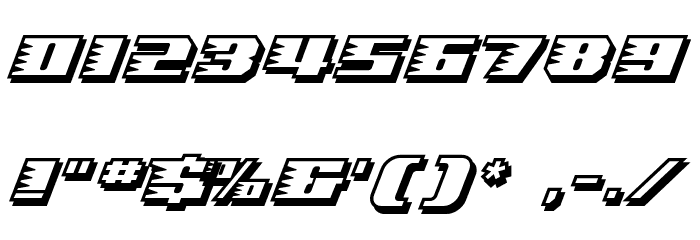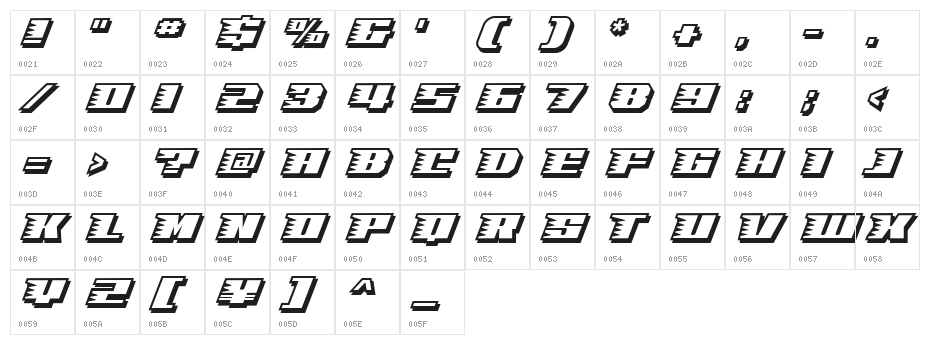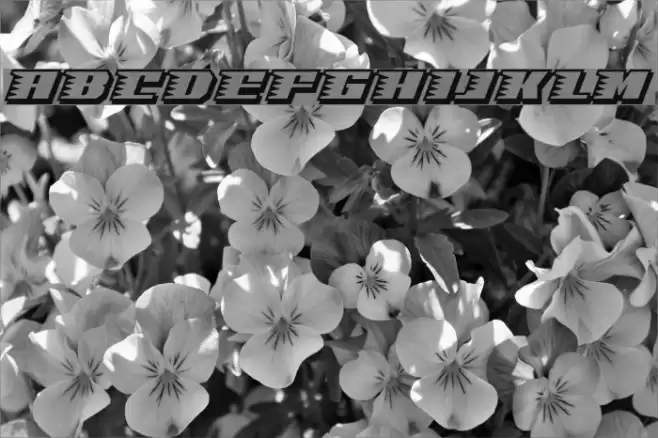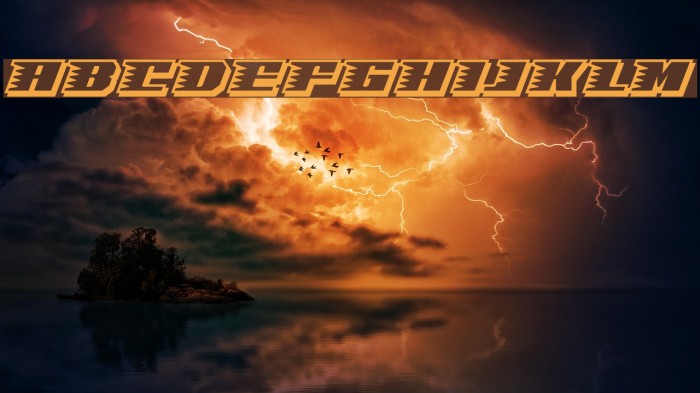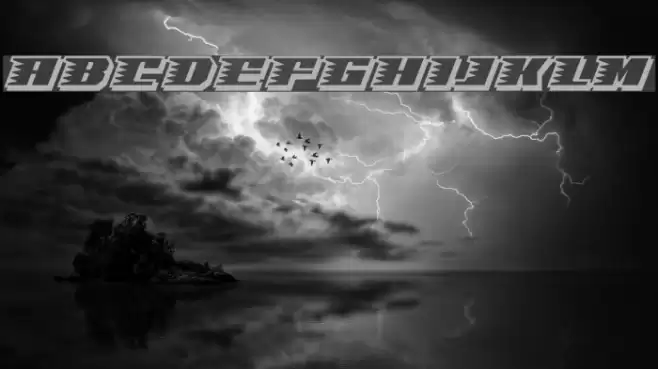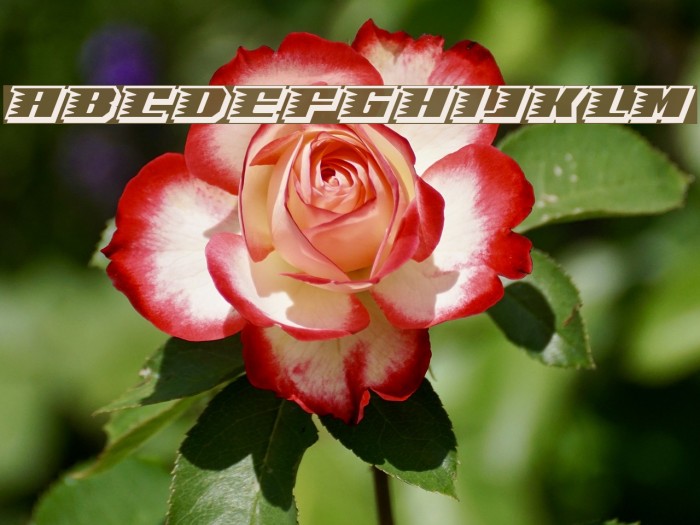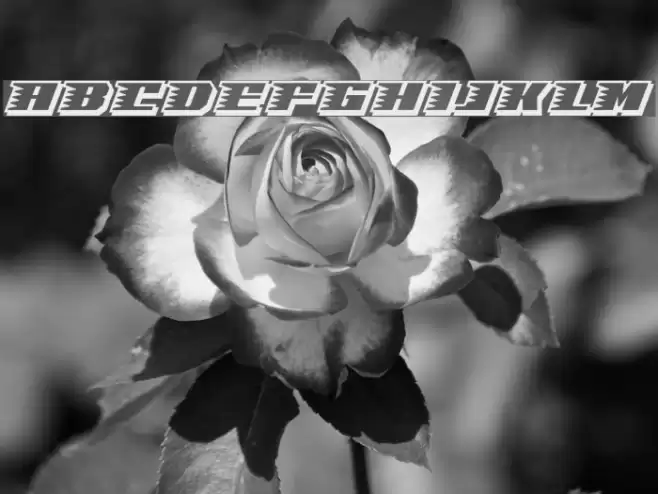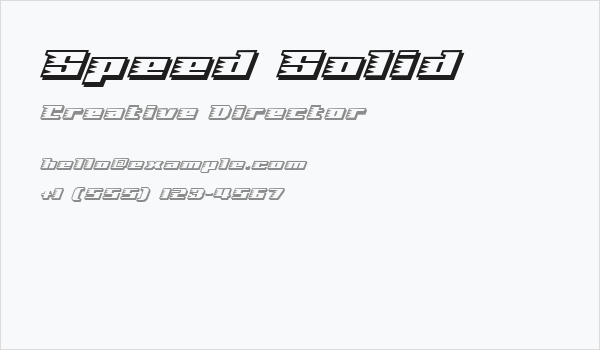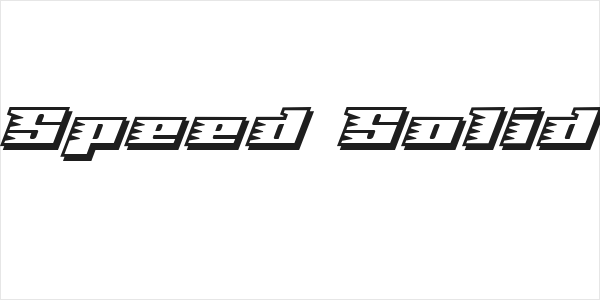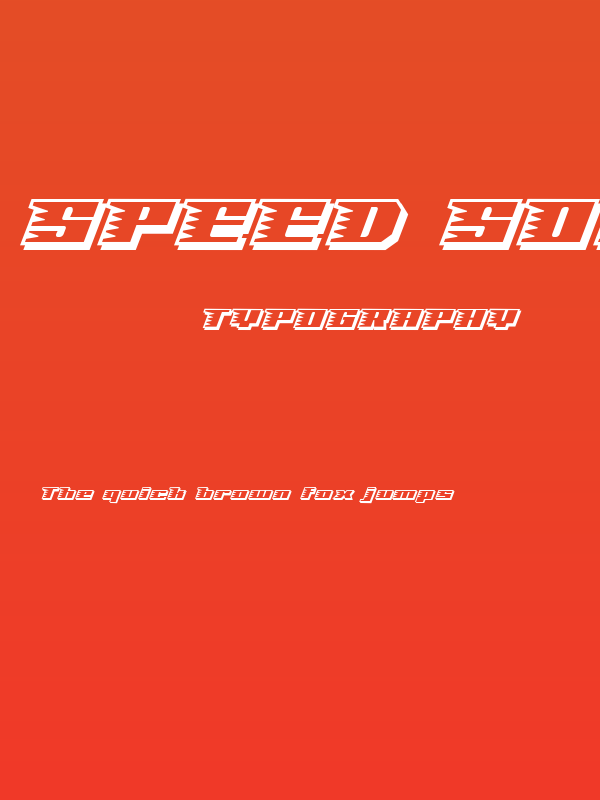
Speed Solid Font
Speed Solid Description
This font features a bold, dynamic style with a distinct 3D effect, characterized by sharp edges and a shadow that gives a sense of movement and speed. The uppercase and lowercase letters maintain a consistent design, with angular cuts and a blocky appearance. The numbers and special characters follow the same energetic theme, making the font suitable for attention-grabbing designs. Its unique style is reminiscent of racing or sports themes, with a modern and aggressive look that stands out.
| Proposed Projects | Ideal for sports branding, racing event posters, video game titles, and dynamic logo designs. |